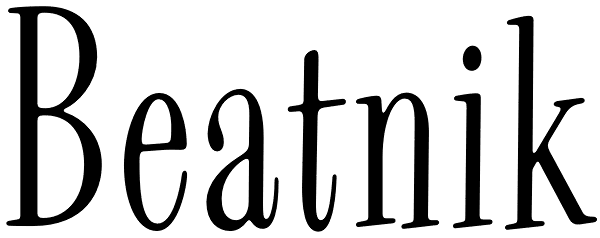
Beatnik
I was working at Bozell Worldwide, an advertising agency, on their yearly promotional pitch. An art director was looking for a condensed informal headline treatment to be used on one of the new ad campaigns. I took several different font designs and...
Beatnik Sm Caps
Beatnik